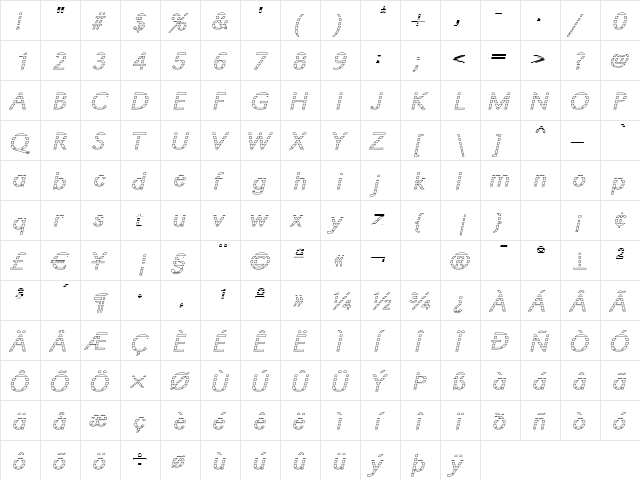
TomBeckerGradoE-Light Italic Font Preview
TomBeckerGradoE-Light Italic
TomBeckerGradoE-Light Italic Font Details
Design Context for TomBeckerGradoE-Light Typeface
TomBeckerGradoE-Light is a composed and adaptable typeface that performs quietly and consistently across a wide range of design contexts. The slanted form adds forward momentum and visual energy. The delicate stroke weight brings airiness and refinement to layouts.